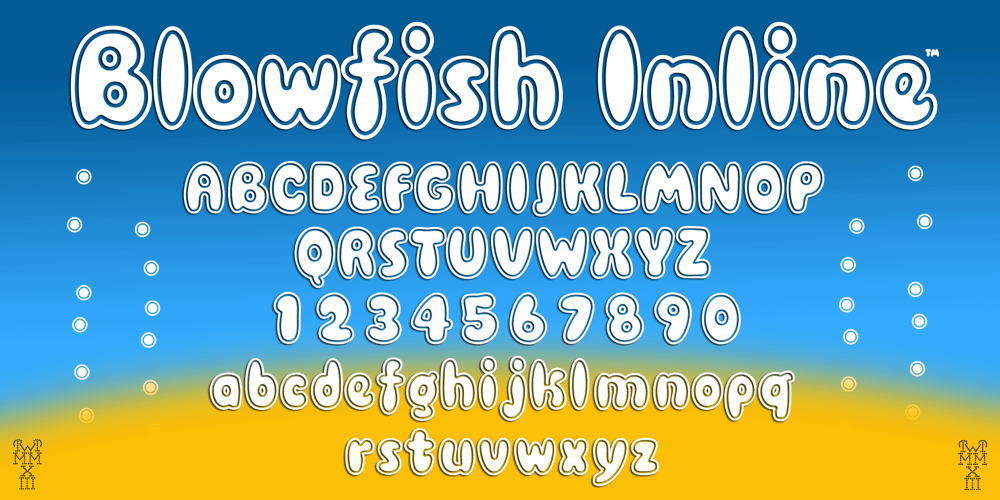
Blowfish Inline
Blowfish Inline font
Blowfish Inline Font Family was designed by Robert Petrick and published by Robert Petrick. Blowfish Inline contains 1 styles and family package options. “Blowfish Inline” is a new addition to my Blowfish Family. Based on my original Blowfish design I have created a more illustrative form. I think it adds to the feeling of “Classic” and extends it’s functionality and novelty.- Robert W. Petrick